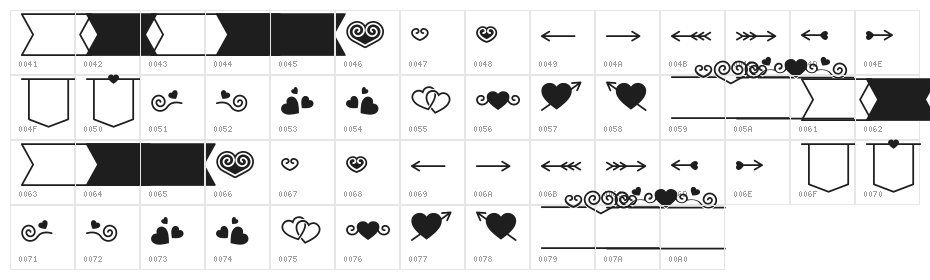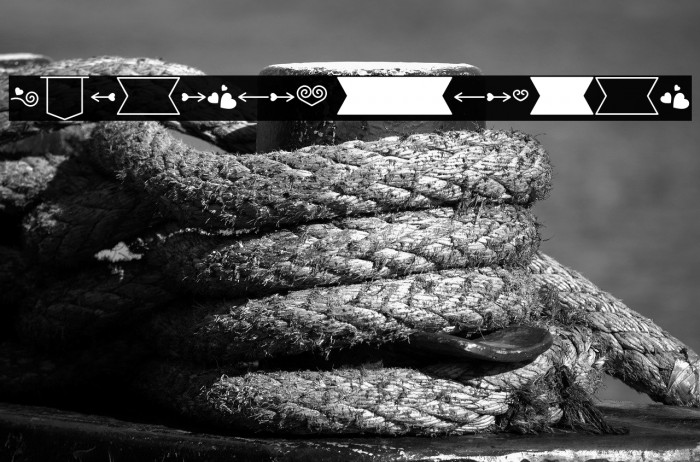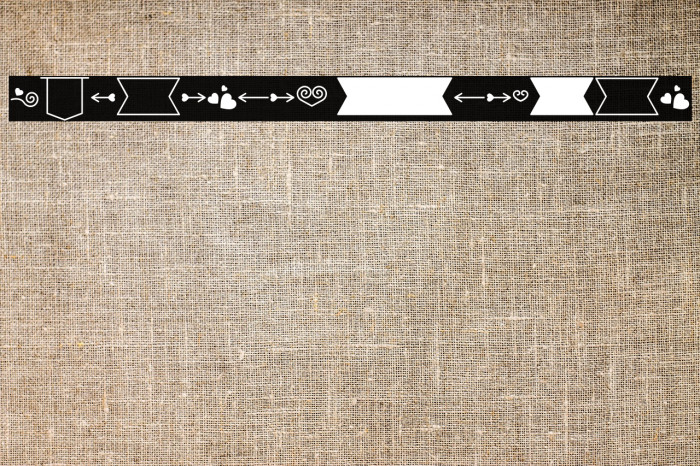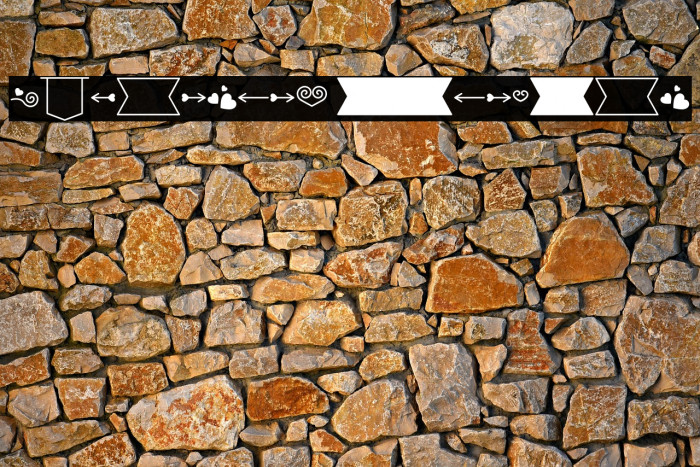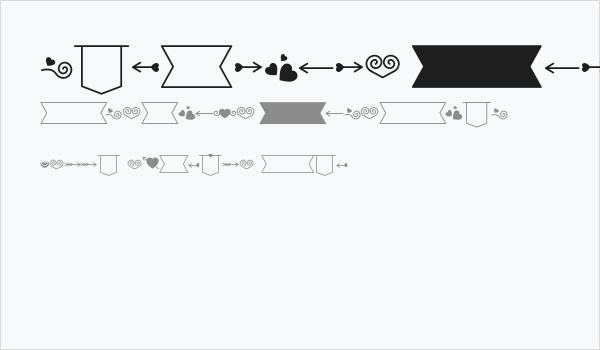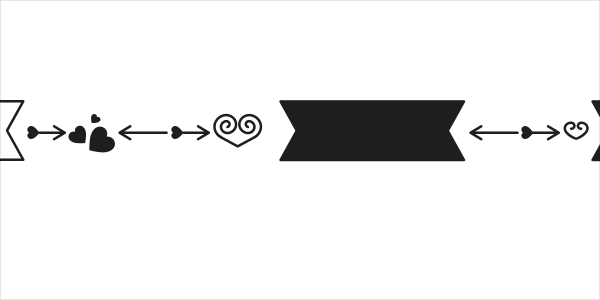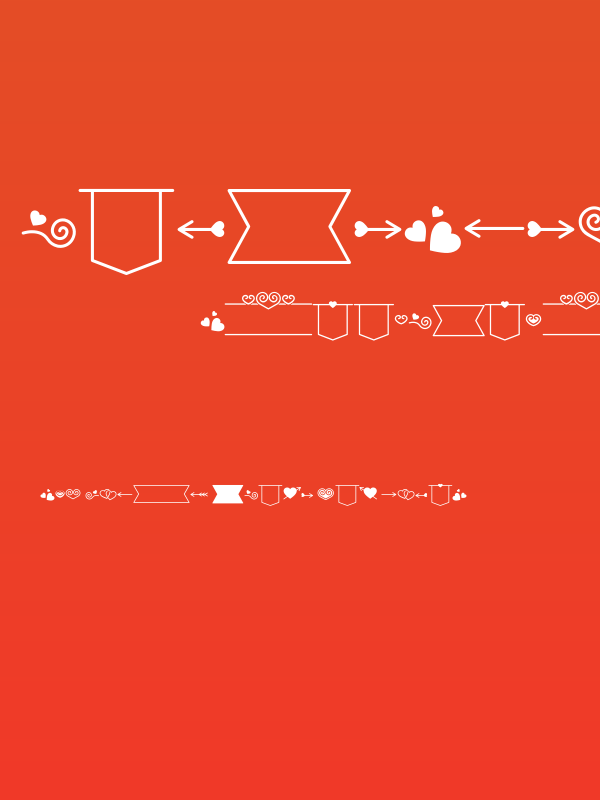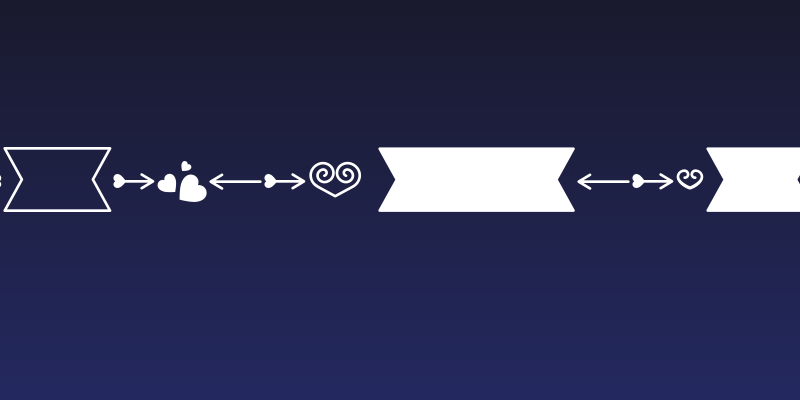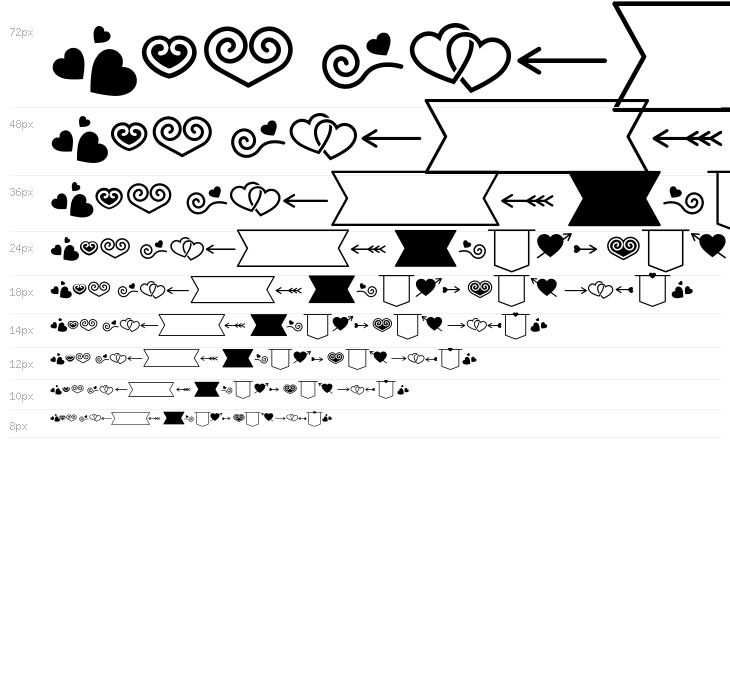
Romantine Dingbat Font
Romantine Dingbat Description
This collection of decorative elements features a variety of intricate designs, including arrows, banners, hearts, and swirls. The elements are crafted with a romantic and whimsical flair, making them ideal for adding a touch of elegance and charm to any project. The designs are predominantly black and white, with a mix of solid and outlined shapes, providing versatility in their application. The motifs include heart shapes, arrowheads, and ornamental flourishes that can be used to create borders, dividers, or embellishments. These elements are perfect for enhancing invitations, greeting cards, or any creative project that requires a decorative touch.
| Use Case | Decorative elements for creative projects. |
| Proposed Projects | Ideal for wedding invitations, romantic greeting cards, scrapbooking, and decorative borders. |